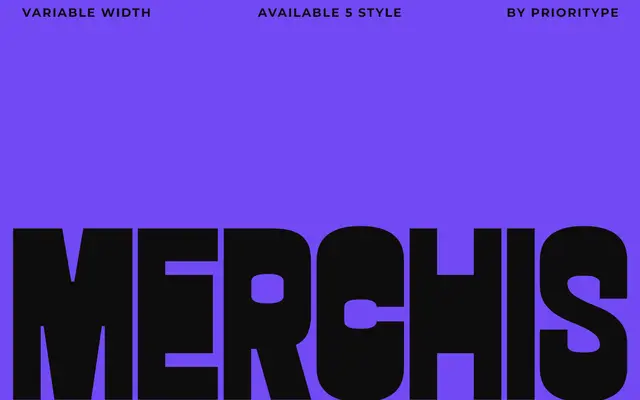
PC Merchis
Prioritype · 2025
A bold display typeface offered in five widths from Condensed to Expanded, with variable font support, aimed at posters, branding and editorial headlines.
Released in February 2025, PC Merchis spans five width variants from Condensed to Expanded, available as OTF, TTF, WOFF and variable font files. The design targets poster and headline work where a strong silhouette is required, and the width range gives designers flexibility across tight and open compositions. Latin Extended language coverage includes over 60 languages across African, European and Asian Latin scripts.
A bold, all-caps-oriented display typeface spanning five widths from Condensed to Expanded, designed specifically for poster and headline use rather than running text.